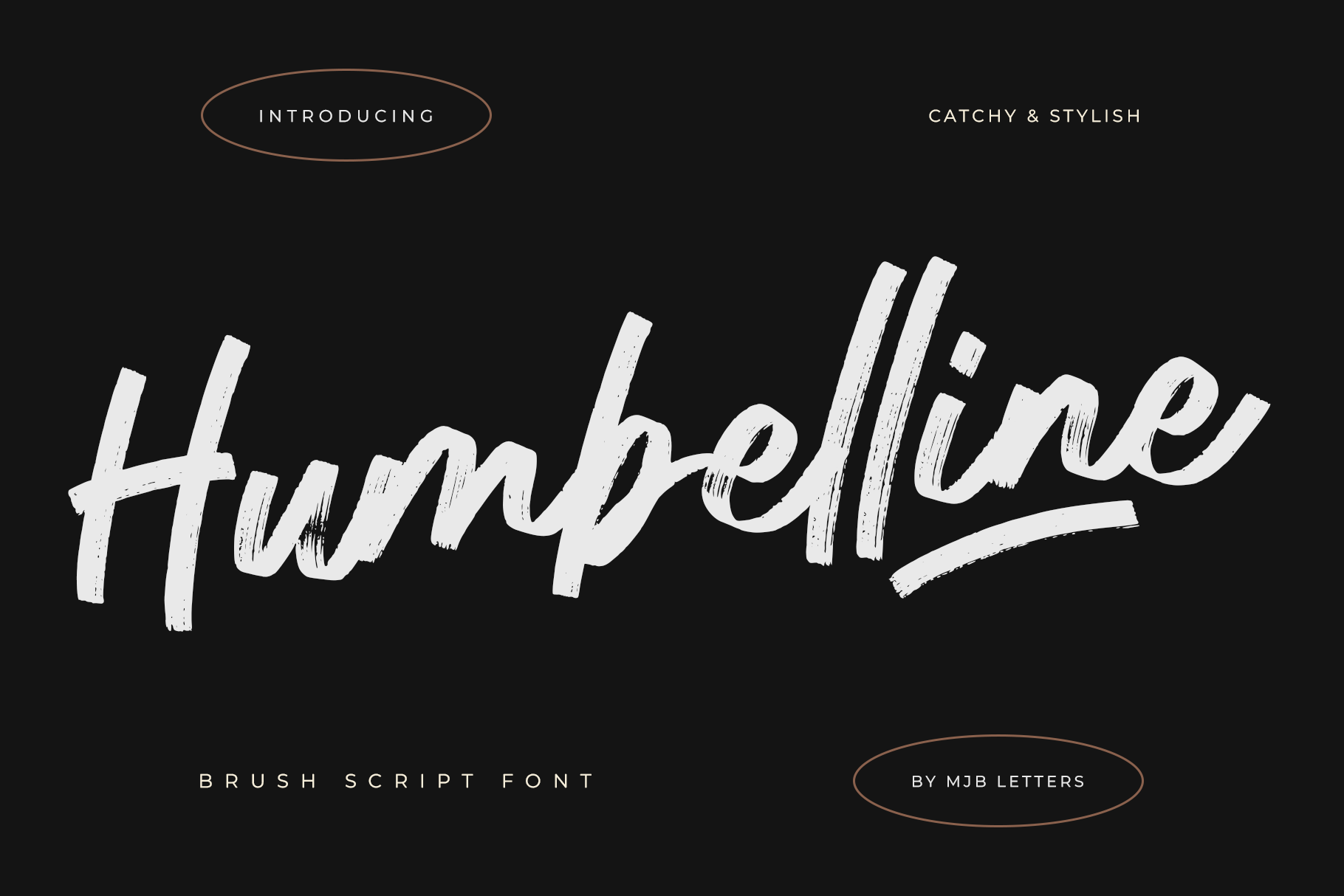
Humbelline - Brush Font
Humbelline is a textured brush script font that combines a casual and modern aesthetic with a handcrafted feel. Its dynamic strokes and natural texture create a unique, eye-catching look that’s perfect for promotional media, product advertising, and branding. Whether you’re designing posters, creating brand identities, or crafting engaging advertisements, Humbelline adds a touch of artistic flair and contemporary style. This font brings your message to life with a distinct, personal vibe that’s both trendy and approachable.
- Underline Swashes